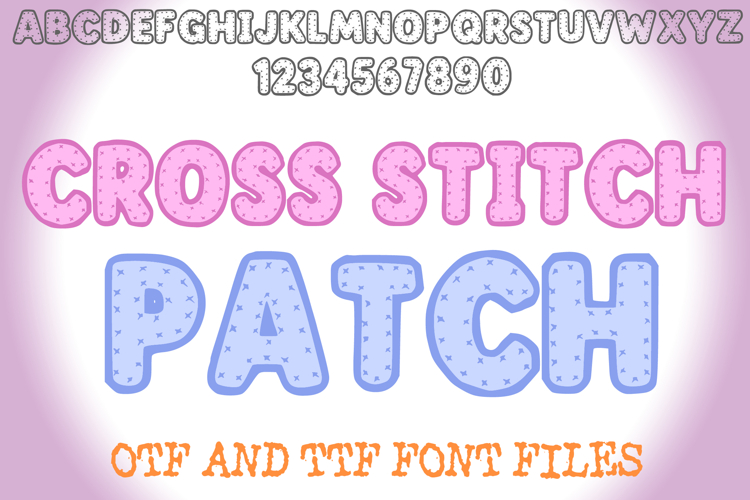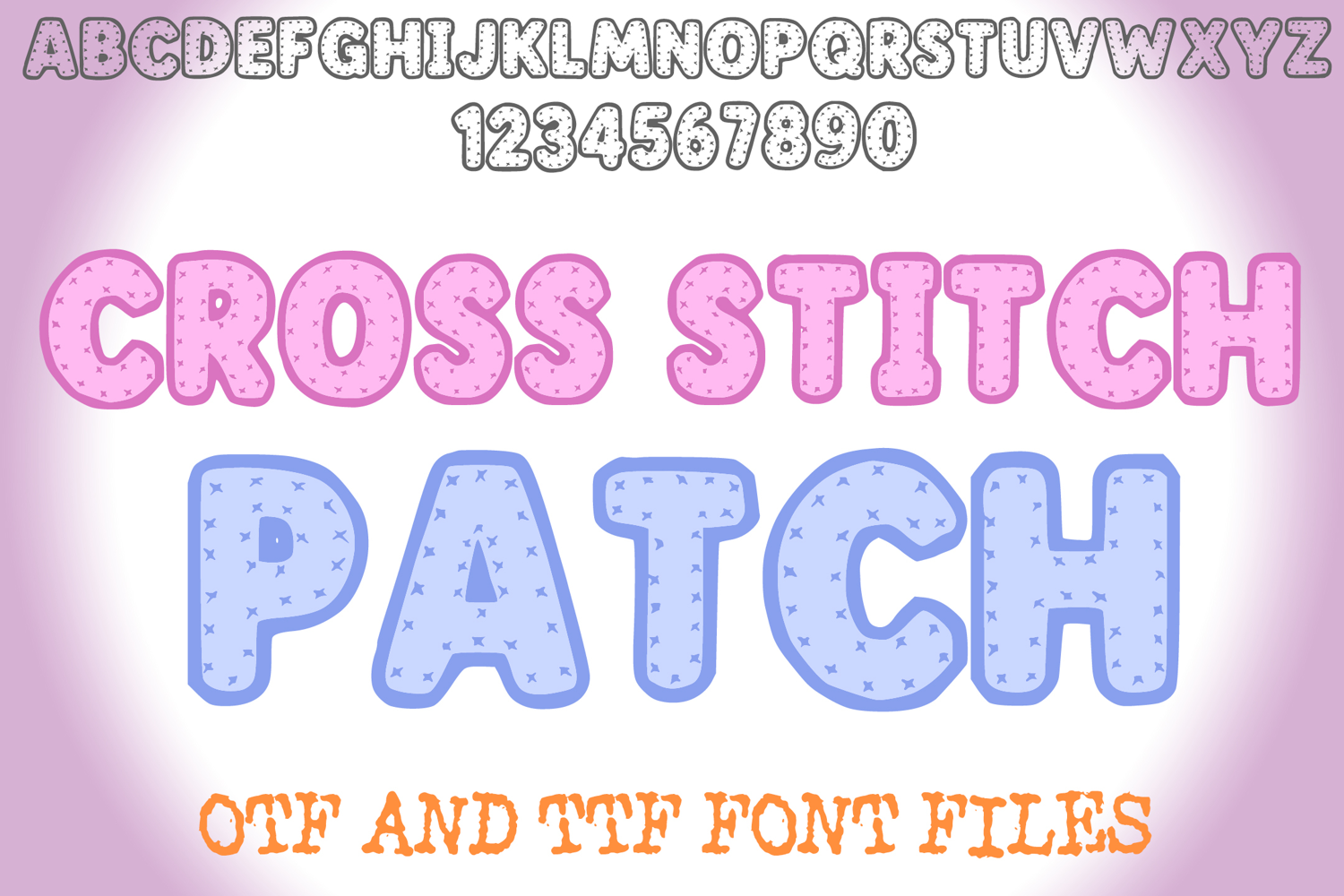
Cross Stitch Patch Alphabet Lettering ABC Sewing Text Font OTF
A sewing style font where you can create your own words and colour them to your vision!